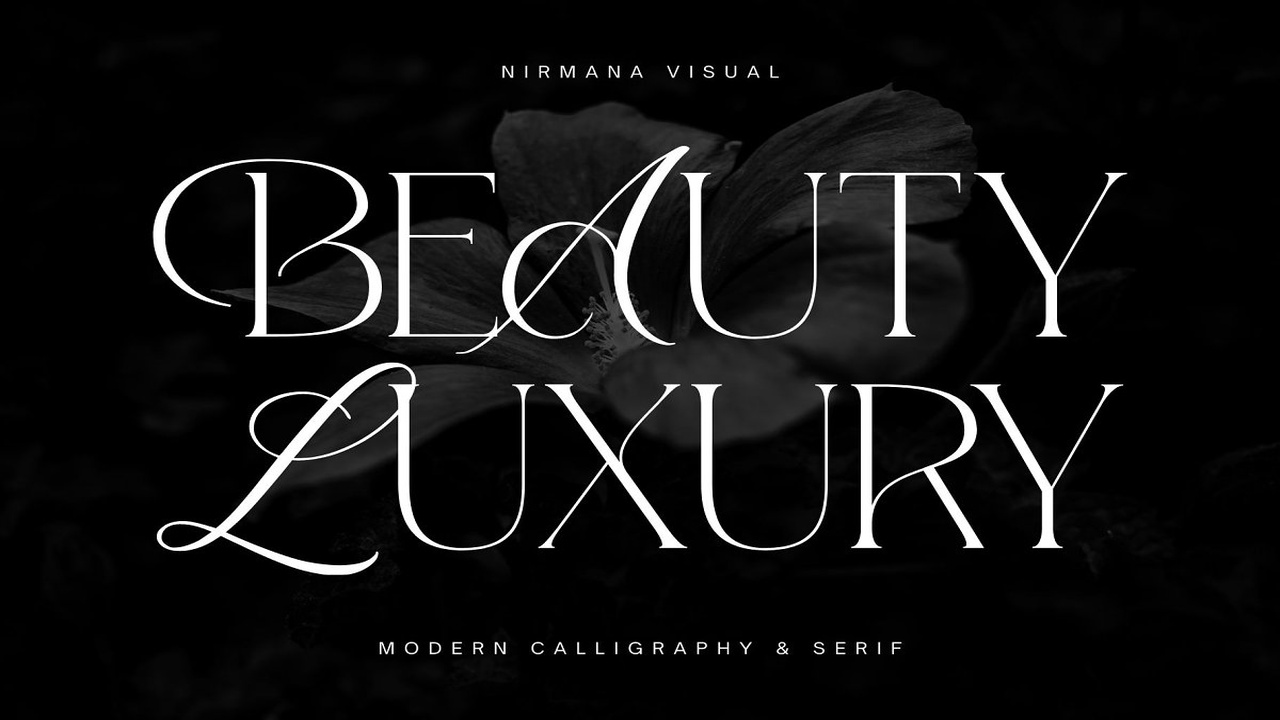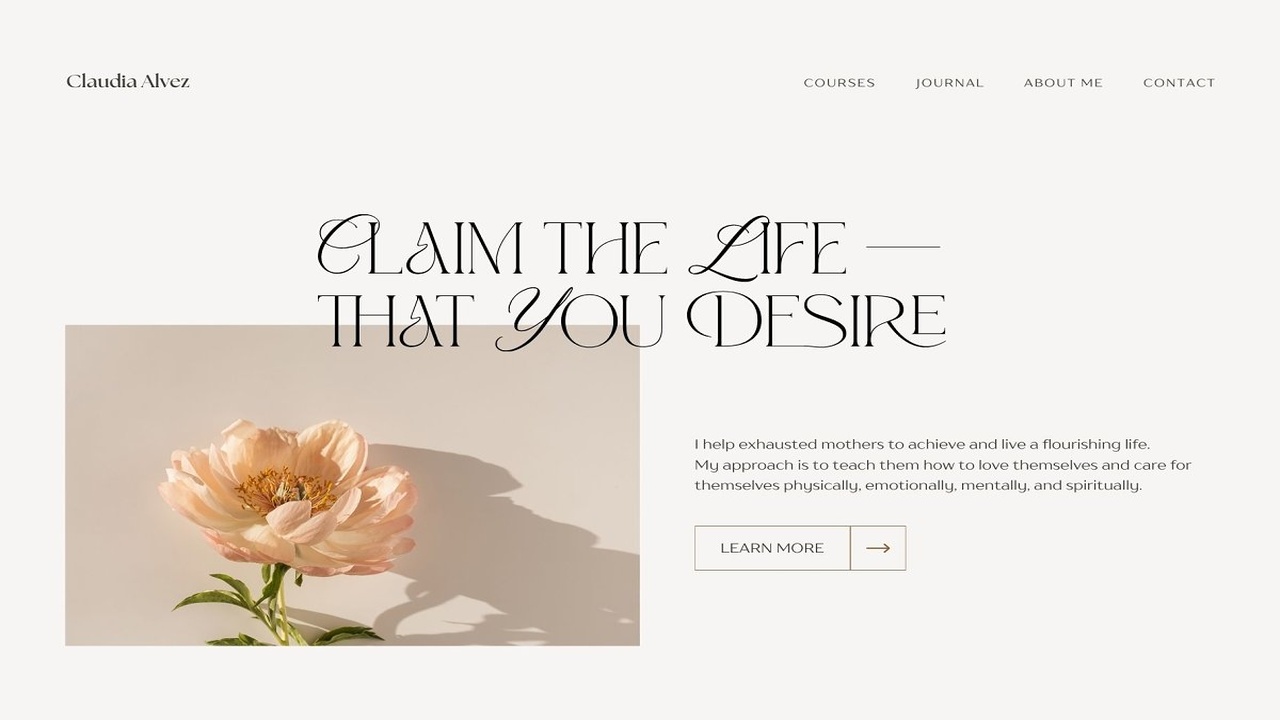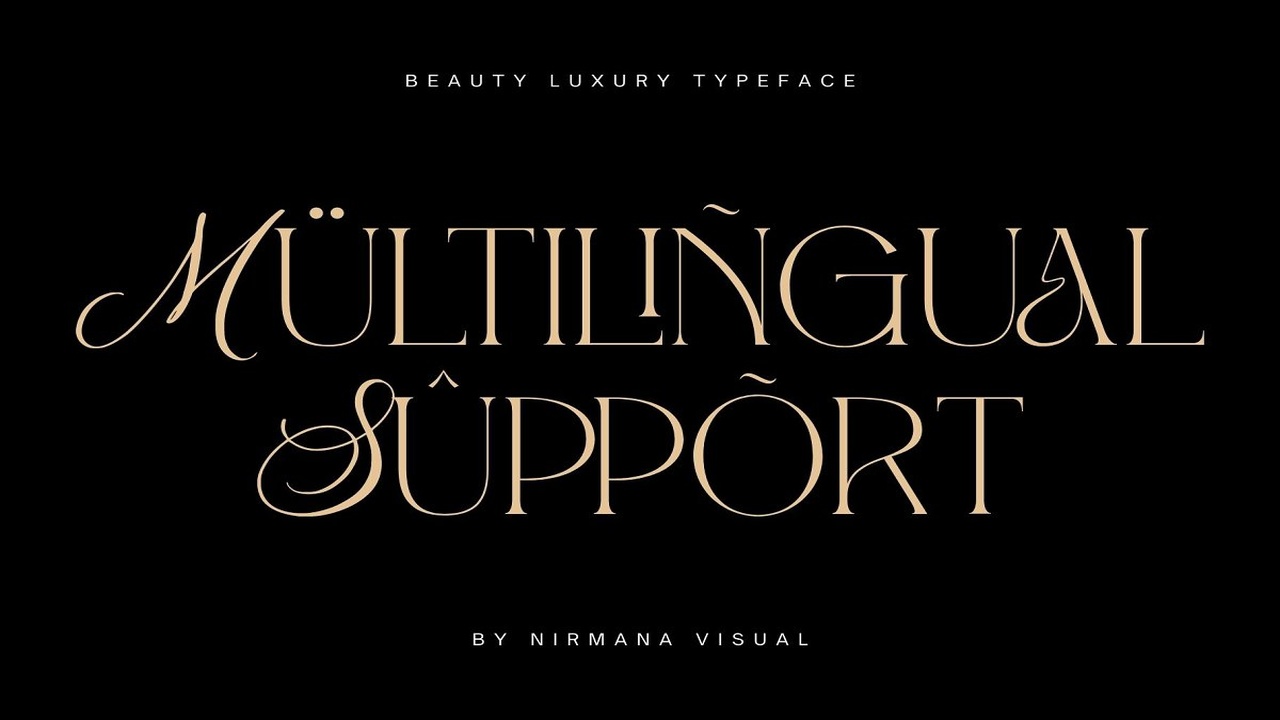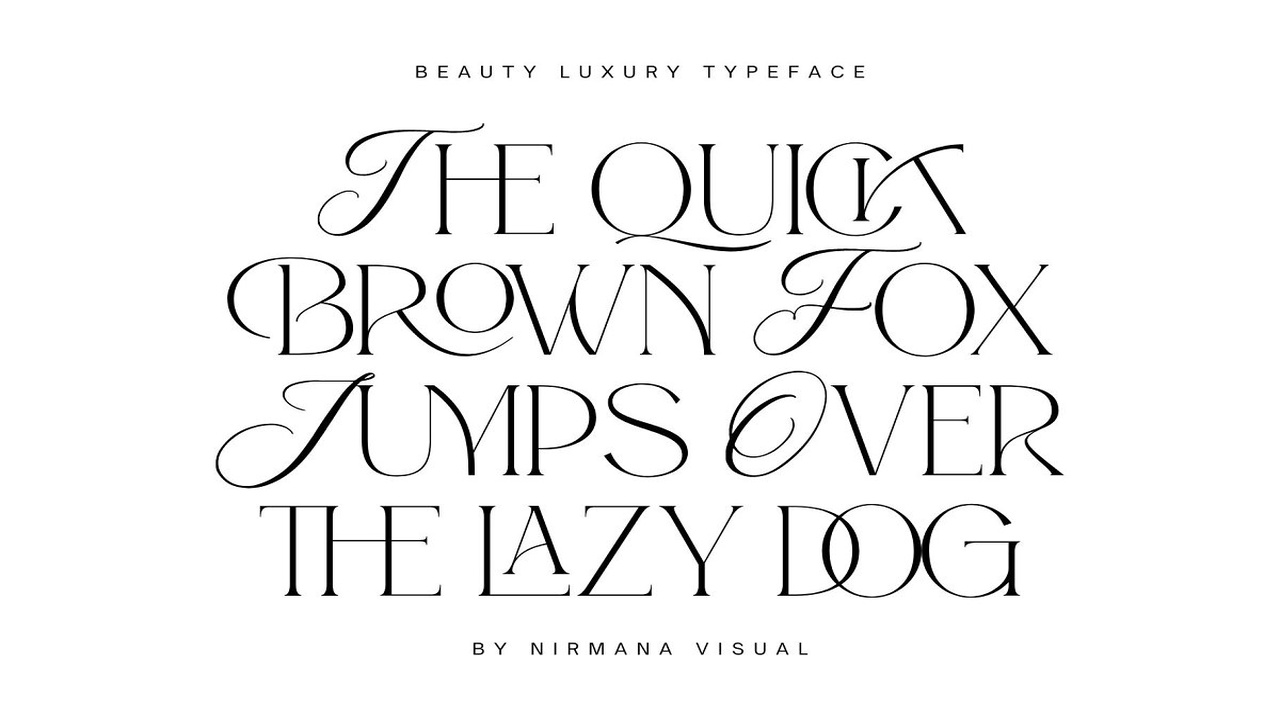
About the Beauty Luxury Ligature Serif Font
Beauty Luxury is a luxury typeface, mix of modern calligraphy and serif, full set of lowercase and uppercase letters, numerals and punctuation, multilingual symbols, Beautiful typographic harmony for a diversity of design projects, including logos & branding, social media posts, advertisements & product designs, Features :LigaturesStylic AlternatesMultilingual Support2 style : Modern Serif & Modern CalligraphyFiles :Beauty Luxury